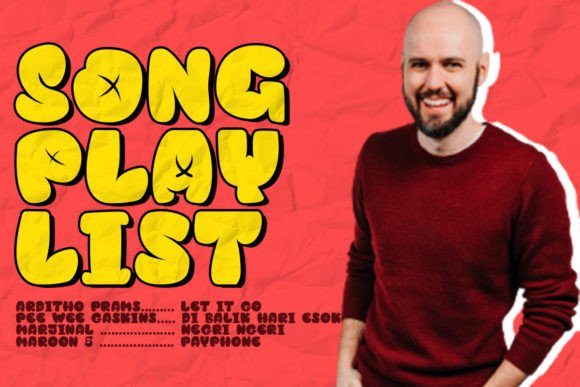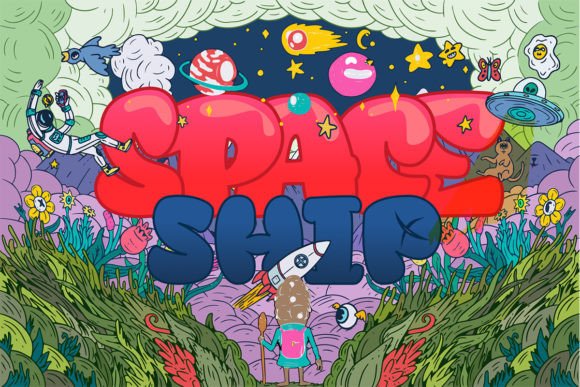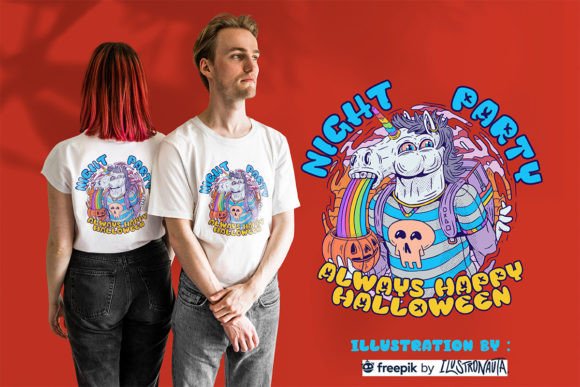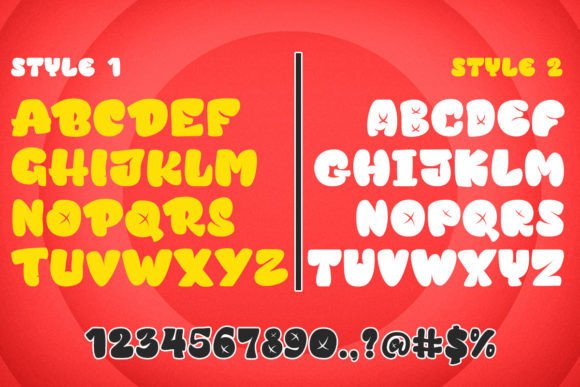
Introducing Boom Sound Font: The Ultimate Choice for Fun and Quirky Designs
Are you tired of using the same old fonts for your designs? Do you want to add a touch of fun and quirkiness to your creations? Look no further than Boom Sound Font! This bold display font is perfect for designers and crafters who want to make an impact and impress their audience.
What is Boom Sound Font?
Boom Sound Font is a fun, bold display font with a quirky and cheerful personality. Its bouncy characters and whimsical vibe are perfect for creating unique kid-friendly designs, trendy and eye-catching posters or social media posts, t-shirts, stickers, or anything that needs to make an impact.
Key Features of Boom Sound Font
- Fun and Quirky Personality: Boom Sound Font has a playful and cheerful personality that is sure to grab attention.
- Bouncy Characters: The font features bouncy characters that add to its whimsical vibe.
- Kid-Friendly: The font is perfect for creating designs for kids, including posters, stickers, and t-shirts.
- Trendy and Eye-Catching: Boom Sound Font is perfect for creating trendy and eye-catching posters or social media posts.
Uses of Boom Sound Font
Boom Sound Font is a versatile font that can be used for a variety of design projects, including:
- Kid-Friendly Designs: Create fun and engaging designs for kids, including posters, stickers, and t-shirts.
- Social Media Posts: Use Boom Sound Font to create trendy and eye-catching social media posts that grab attention.
- Posters and Flyers: Create bold and eye-catching posters and flyers that make an impact.
- T-Shirts and Merchandise: Use Boom Sound Font to create fun and quirky designs for t-shirts and other merchandise.
Benefits of Using Boom Sound Font
Using Boom Sound Font can have several benefits for designers and crafters, including:
- Unique Designs: Boom Sound Font allows you to create unique and eye-catching designs that stand out from the crowd.
- Versatility: Boom Sound Font can be used for a variety of design projects, making it a versatile addition to your font collection.
Tips and Tricks for Using Boom Sound Font
Here are some tips and tricks for using Boom Sound Font:
- Experiment with Colors: Boom Sound Font looks great in bright and bold colors, so don’t be afraid to experiment.
- Use it for Headlines: The font is perfect for headlines and titles, so use it to grab attention.
- Pair it with Other Fonts: Boom Sound Font can be paired with other fonts to create a unique and eye-catching design.
Boom Sound Font is a fun and quirky font that is perfect for designers and crafters who want to make an impact. Its bouncy characters and whimsical vibe make it perfect for creating unique kid-friendly designs, trendy and eye-catching posters or social media posts, t-shirts, stickers, or anything that needs to make an impact. With its versatility and ease of use, Boom Sound Font is a great addition to any font collection.